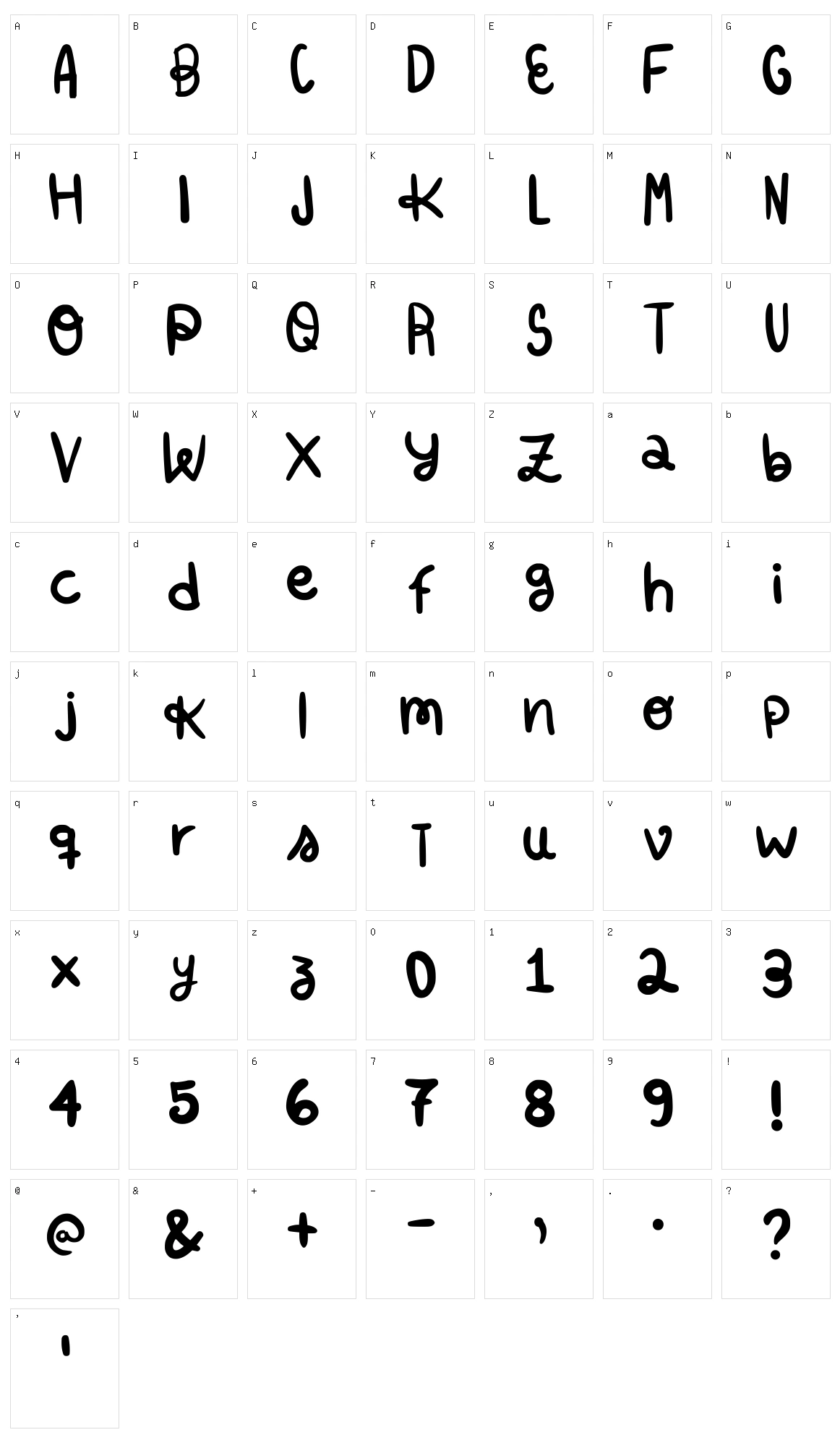
The free font Simon is carefully designed by Brisitasdemar, showcasing a thoughtful balance of creativity and usability and falls under the Script font style. When you download the ZIP file, it contains only 116.35 KB of font files, making it lightweight and quick to download. Please review the license details below to understand permitted usage and distribution rights. If license information is not available, we recommend using this font for personal projects only or contacting the author directly for commercial usage permissions.